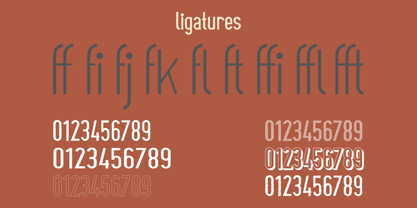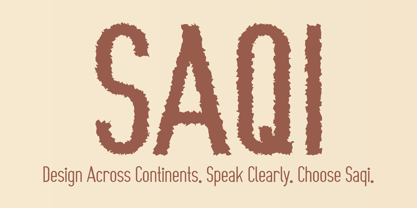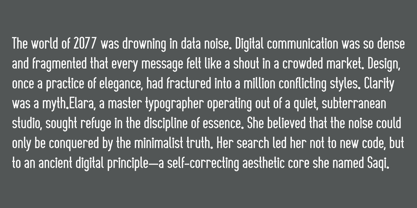
Saqi
by Kufic Studio
The Saqi Font Family was designed by Ahsan Ahmedzai and published by Kufic Studio. Saqi contains 36 styles and family package options.
Saqi: Modern, Minimal, and Globally Fluent Saqi is a contemporary and minimalist typeface meticulously designed for modern brands and global communication. With its clean lines and balanced proportions, Saqi offers sophisticated simplicity that ensures high legibility across all platforms and scales. What sets Saqi apart is its exceptional versatility and vast multilingual support, covering English, German, French, Russian, Ukrainian, Spanish, Italian, Portuguese, and Turkish. Saqi is truly built for the global stage, allowing you to maintain a consistent brand voice across continents and languages. The font's design philosophy is carried through its five distinctive variants: Expanded, Outlined, Scribble, Rough, and Shadow. This powerful family offers a ready-made solution for any creative project—from elegant corporate branding and professional digital interfaces to expressive, high-impact marketing materials. Saqi is the one font family you need to master minimal design with maximum flexibility.